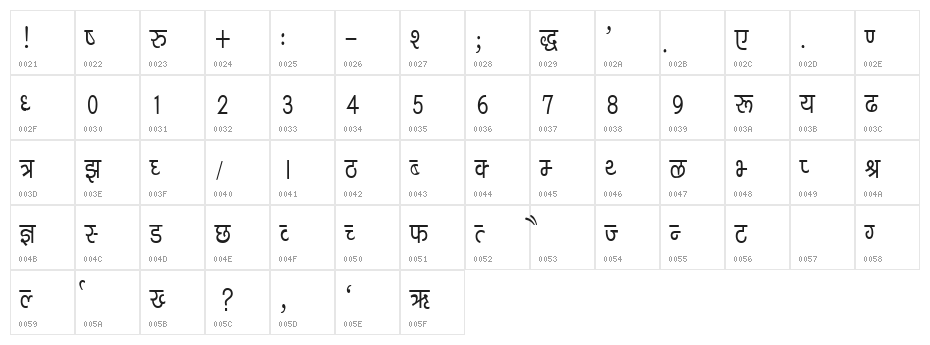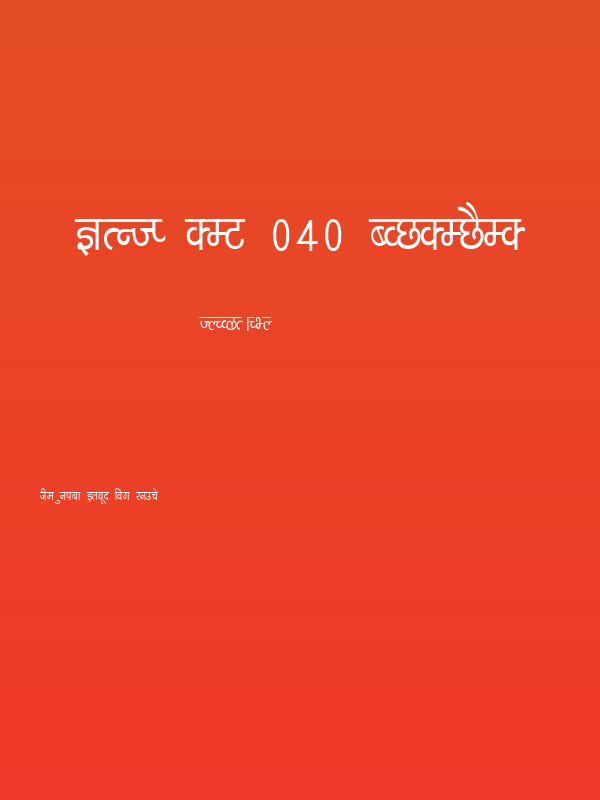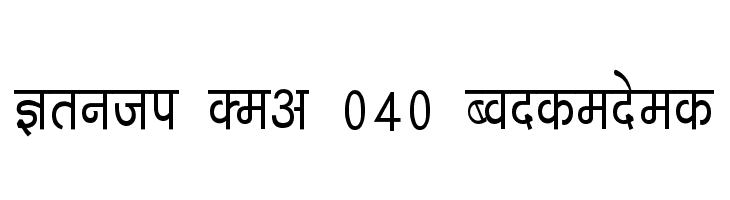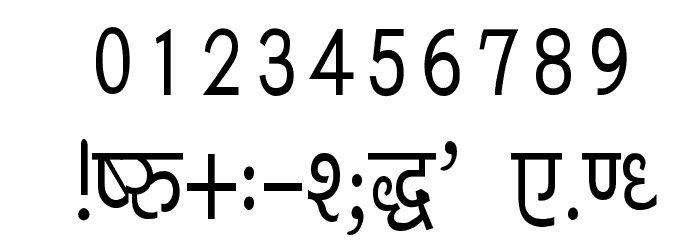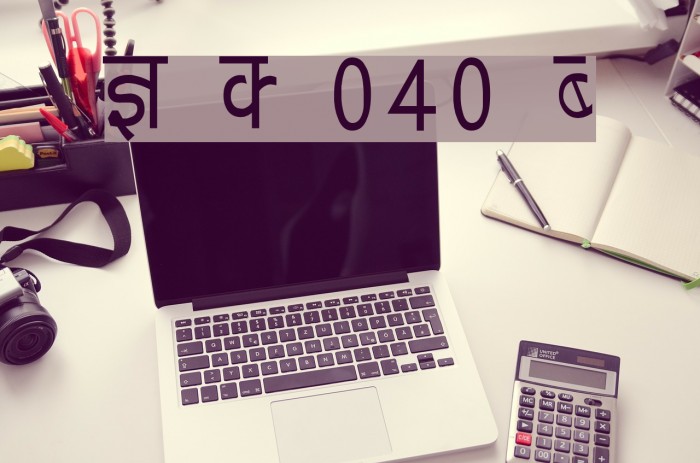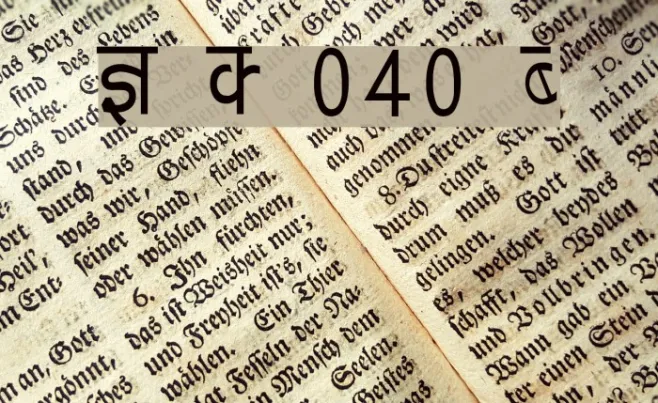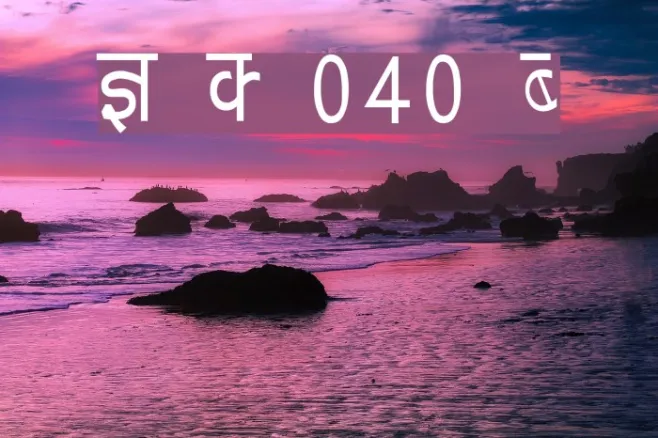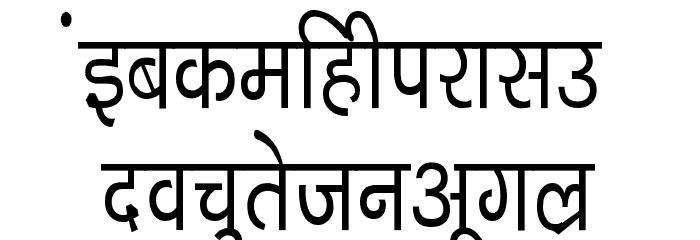
Kruti Dev 040 Condensed Font
| Caso d'uso | Headlines, Body text |
| Progetti proposti | Ideal for newspapers, magazines, educational materials, and digital content requiring a traditional yet modern Devanagari script. |